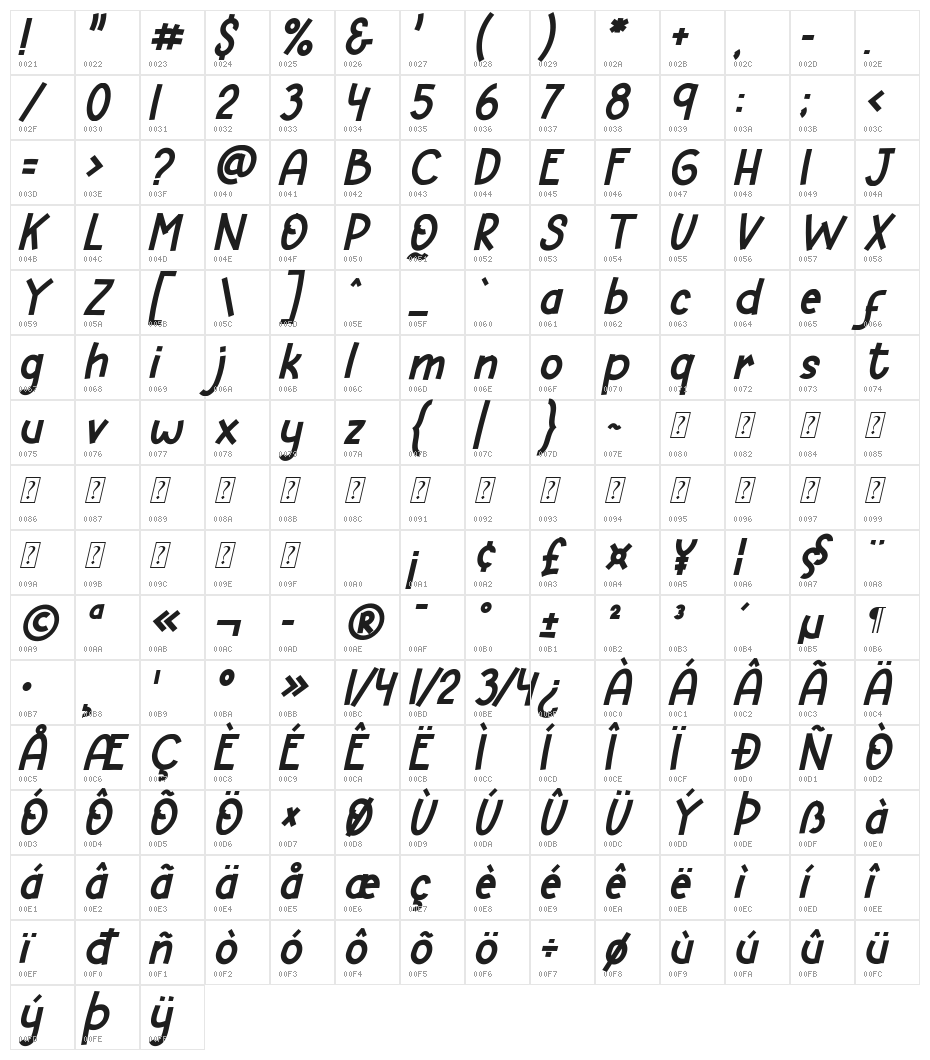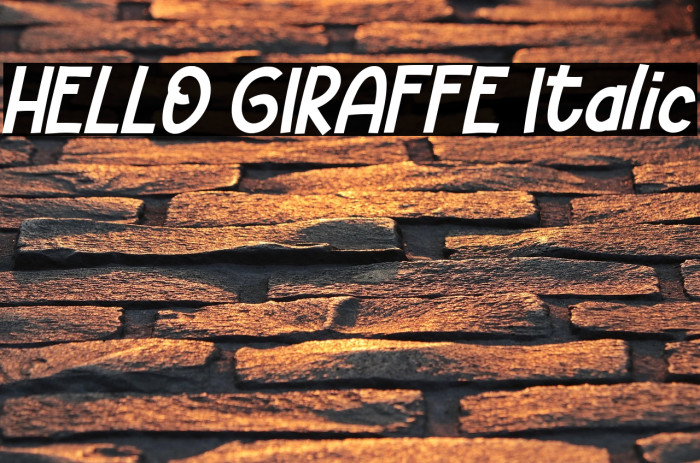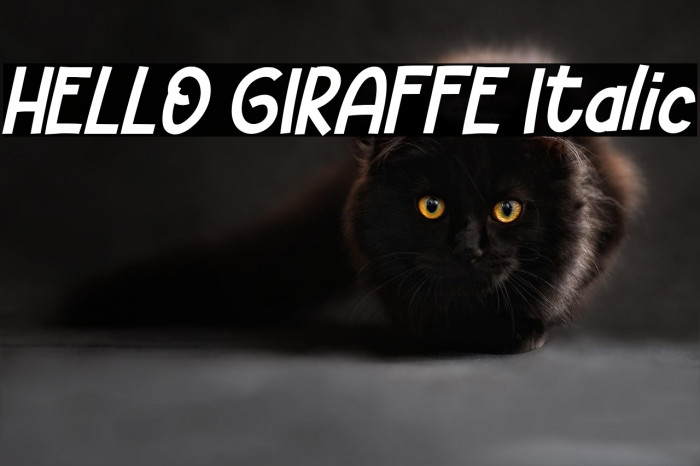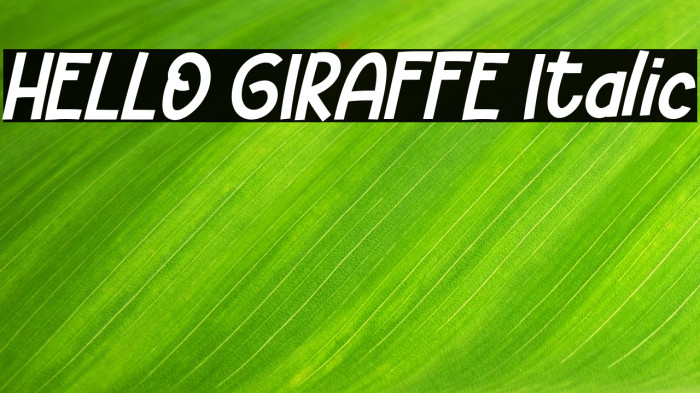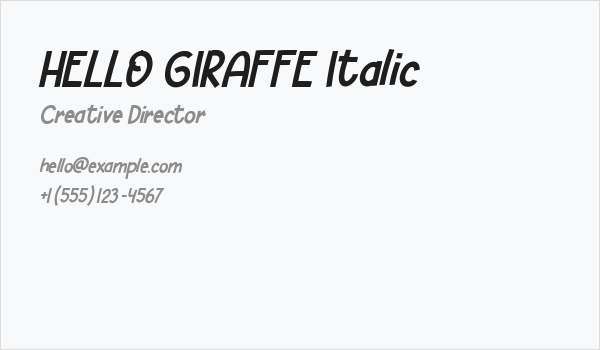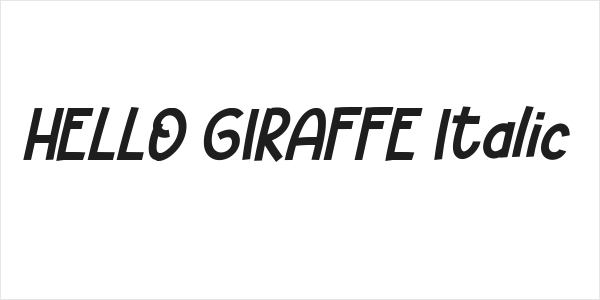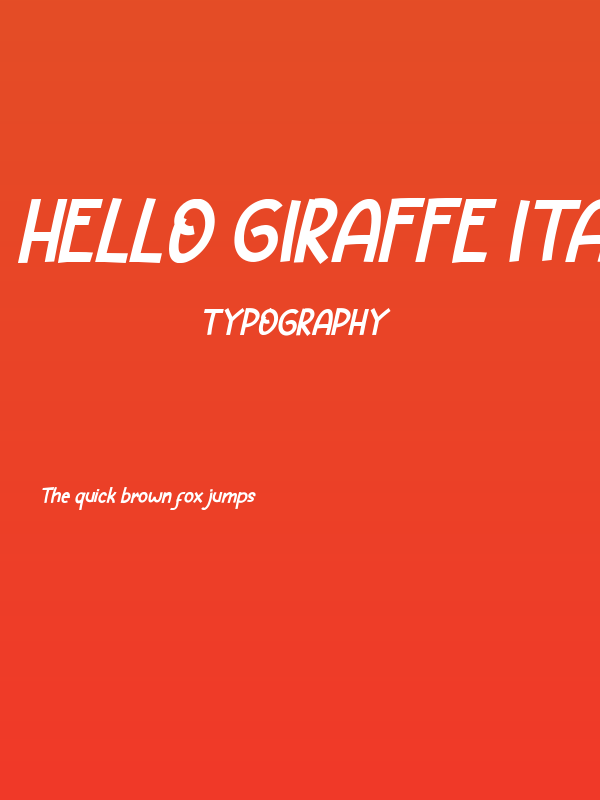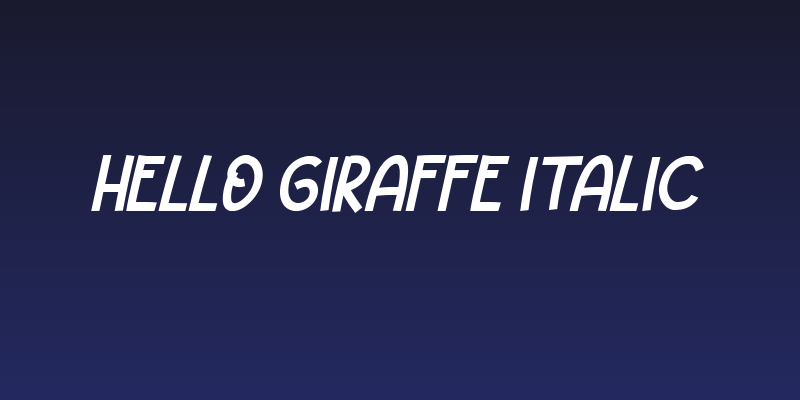
HELLO GIRAFFE Italic Font
HELLO GIRAFFE Italic Description
This font features a dynamic and playful style with a distinct italic slant, giving it a sense of motion and energy. The characters are bold and slightly condensed, with smooth curves and a consistent stroke width that maintains readability. The uppercase letters have a unique flair, particularly noticeable in the 'G' and 'Q', which have a creative loop. The lowercase letters are equally expressive, with a slightly exaggerated height that complements the uppercase. Numbers and special characters are designed to match the overall style, ensuring a cohesive appearance across all text elements.
Overall StylePlayful, Dynamic
Proposed ProjectsIdeal for branding projects, playful headlines, posters, and creative advertising campaigns.